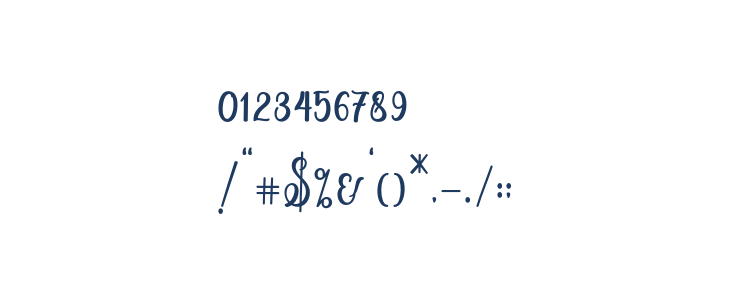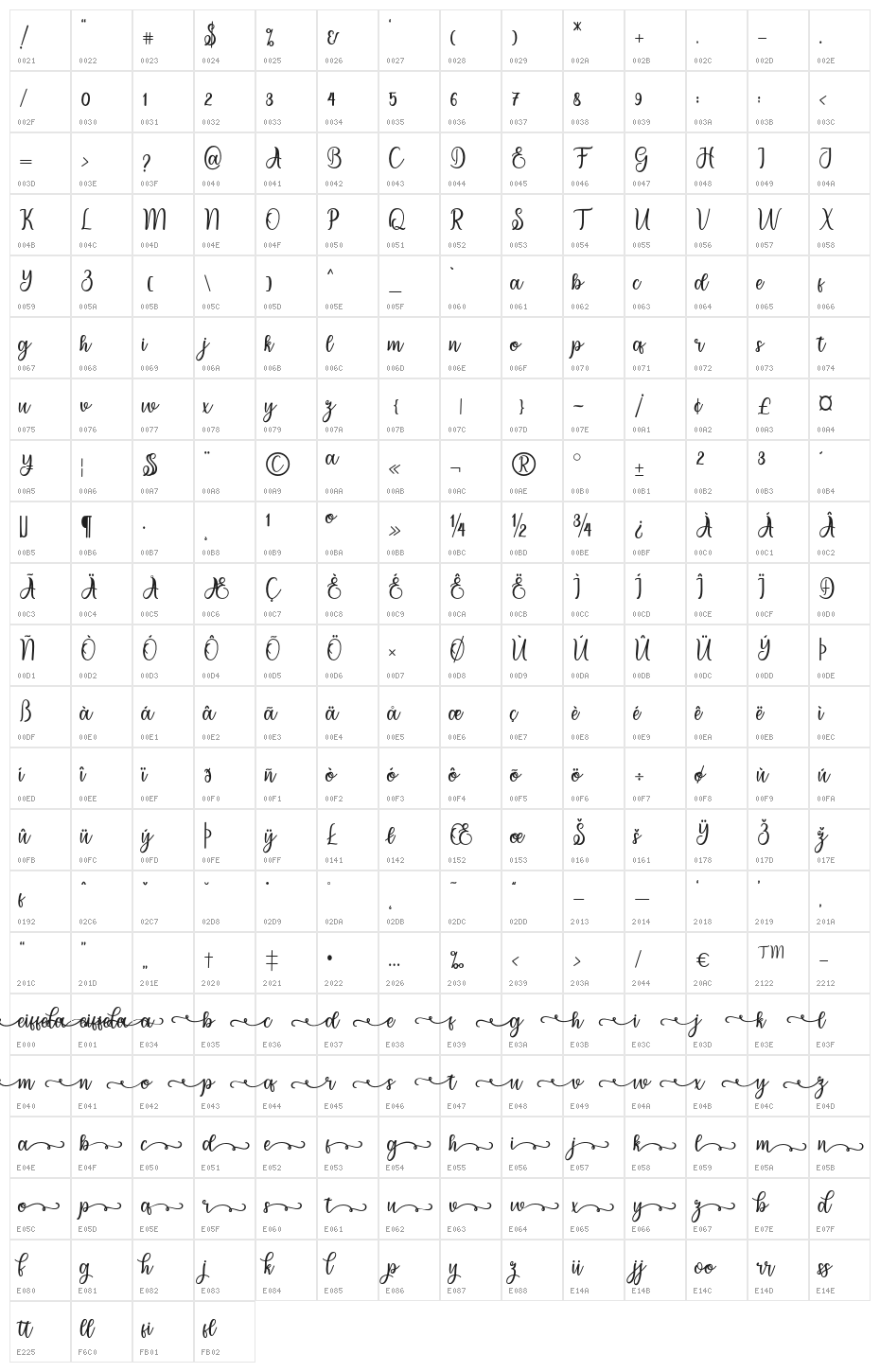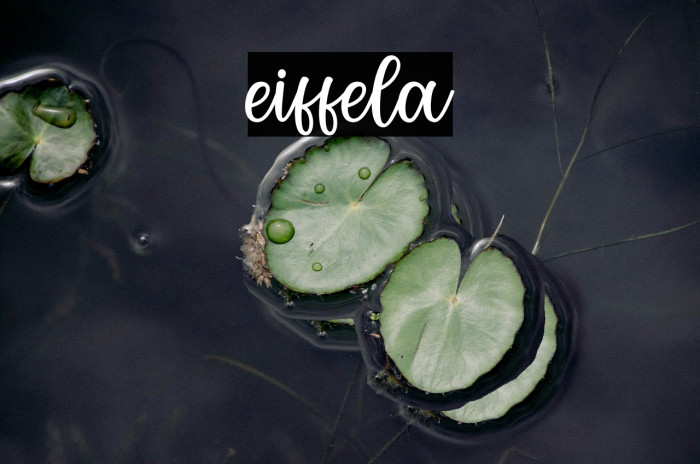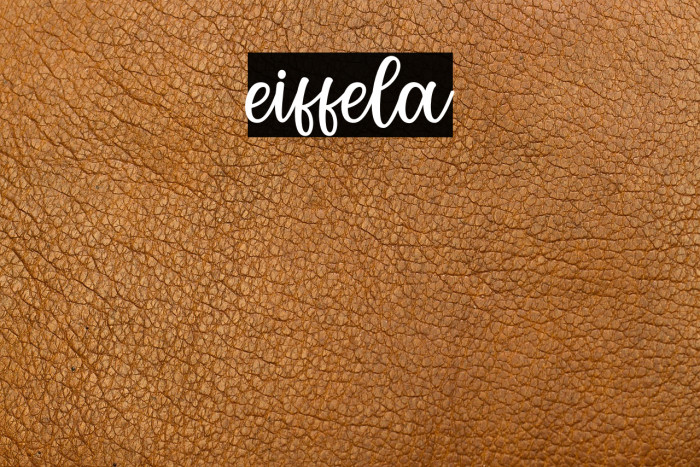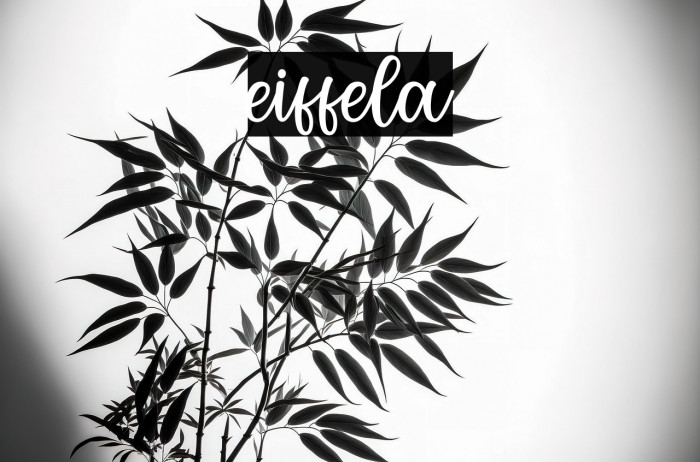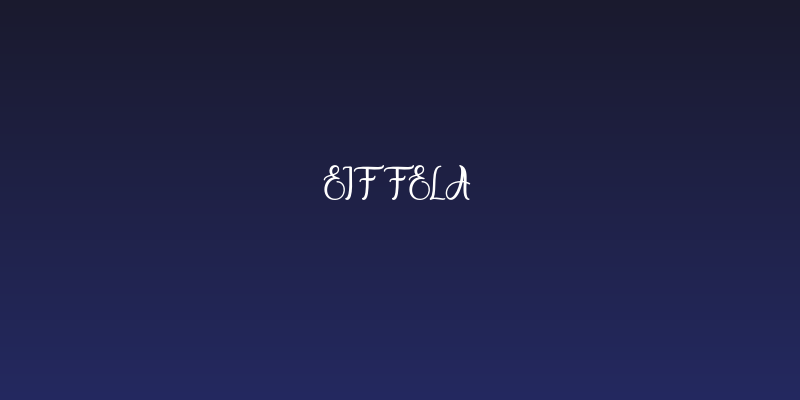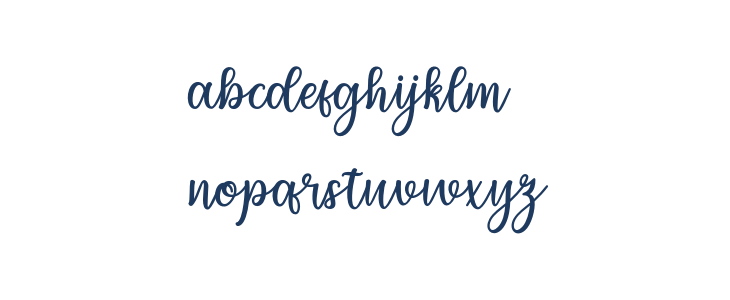
eiffela Font
eiffela Description
This font features an elegant and flowing script style, characterized by its smooth curves and graceful lines. The uppercase letters exhibit a sophisticated flair with extended strokes and loops, while the lowercase letters maintain a consistent and harmonious flow. The numerals are designed with a similar elegance, ensuring readability while maintaining the overall aesthetic. Special characters are thoughtfully integrated, complementing the font's refined appearance. This font exudes a sense of charm and sophistication, making it ideal for projects that require a touch of elegance and style.